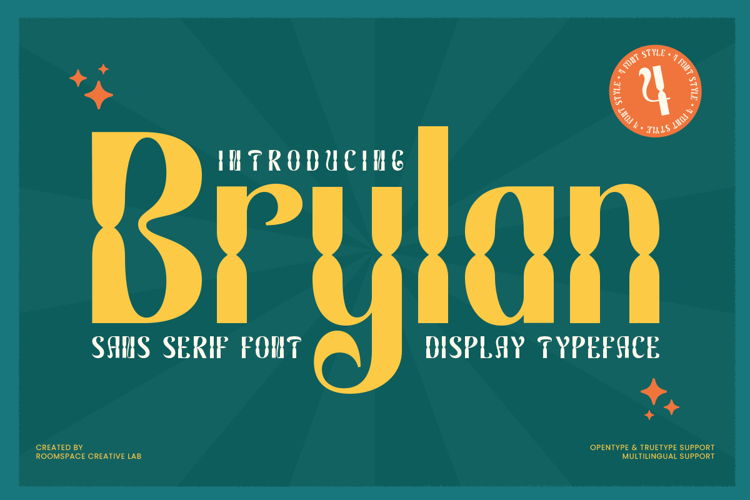
Brylan - Font
Brylan is a retro-inspired display sans typeface built with geometric precision and bold visual rhythm. Its sculptural forms recall vintage signage and modern editorial design ideal for branding, packaging, and display typography.
With smooth kerning, multilingual coverage, and refined proportions, Brylan is a confident choice for designers who value both nostalgia and modernity.